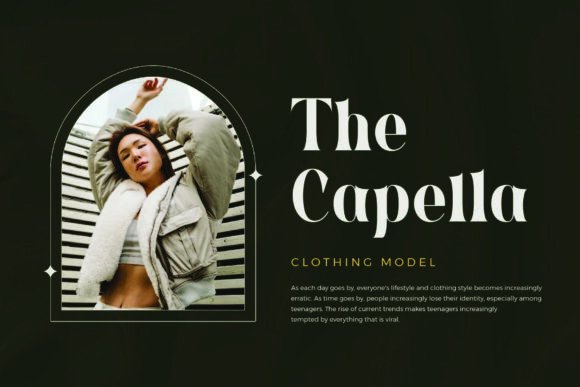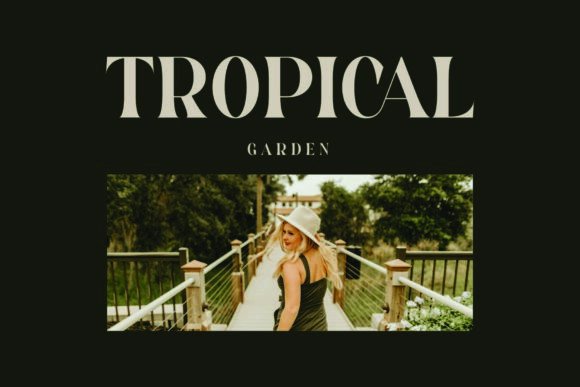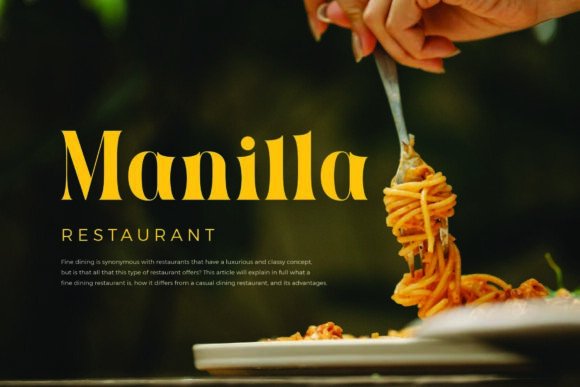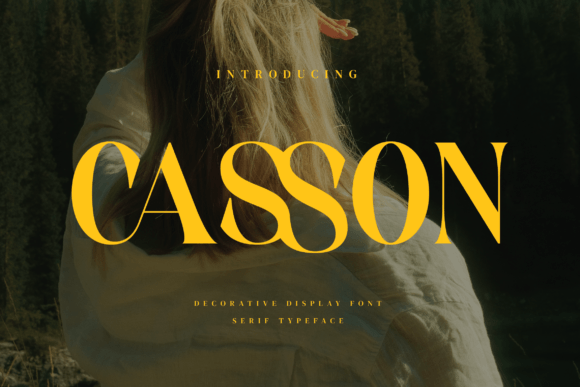
Introduction to Casson Font
Casson Stylish Ligature Typeface, inspired by the famous minimalist logo perfect for the purposes of designing templates, brochures, videos, advertising branding, logos, and more.
Key Features of Casson Font